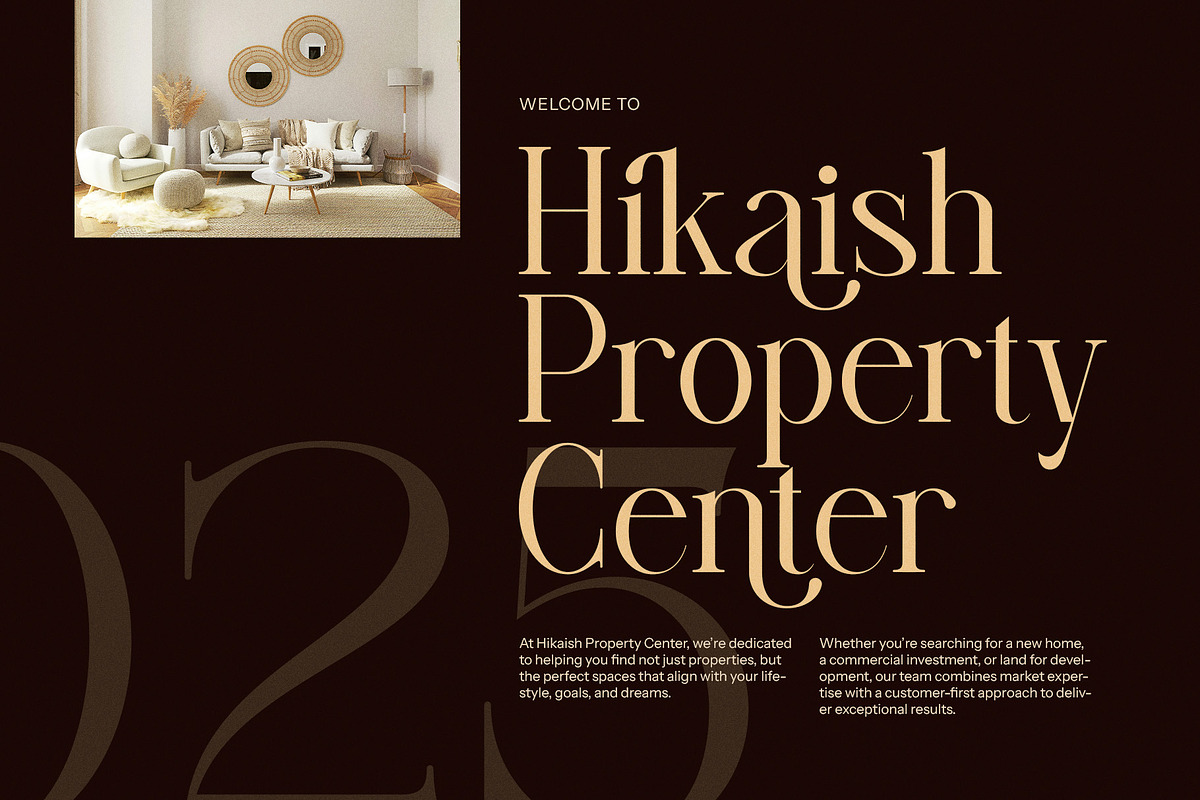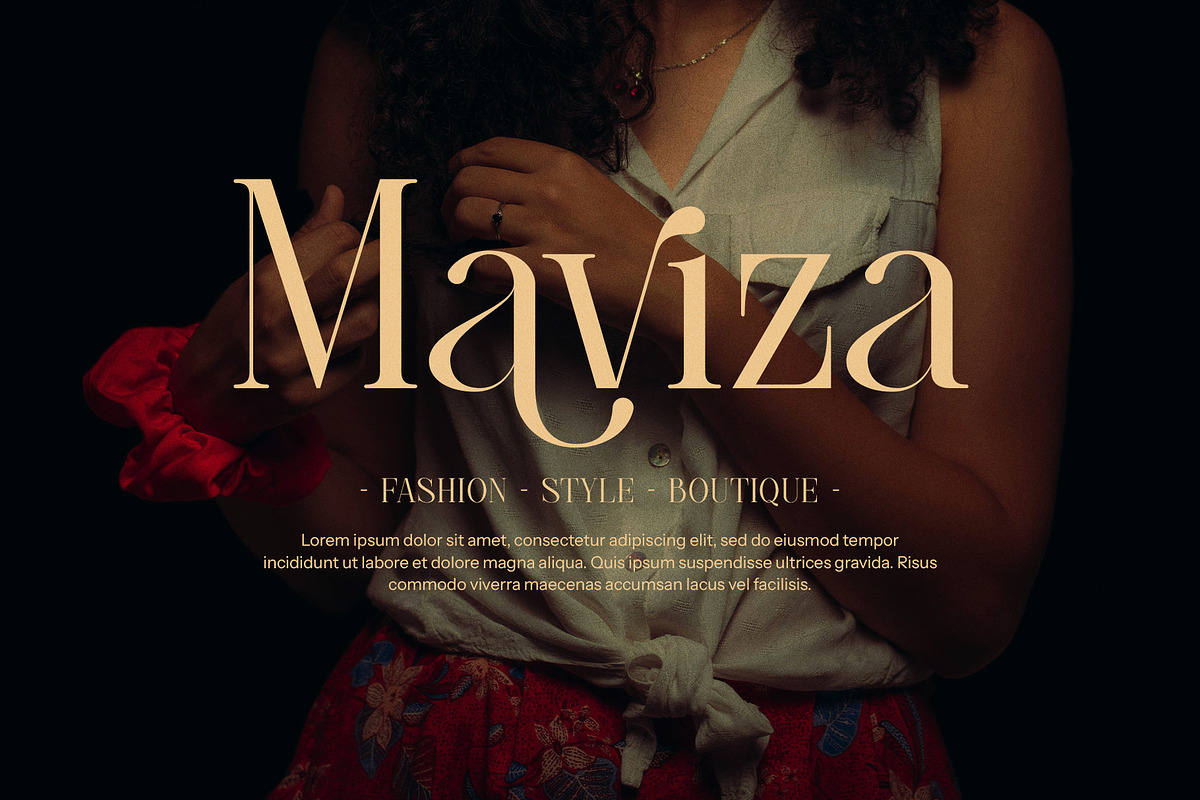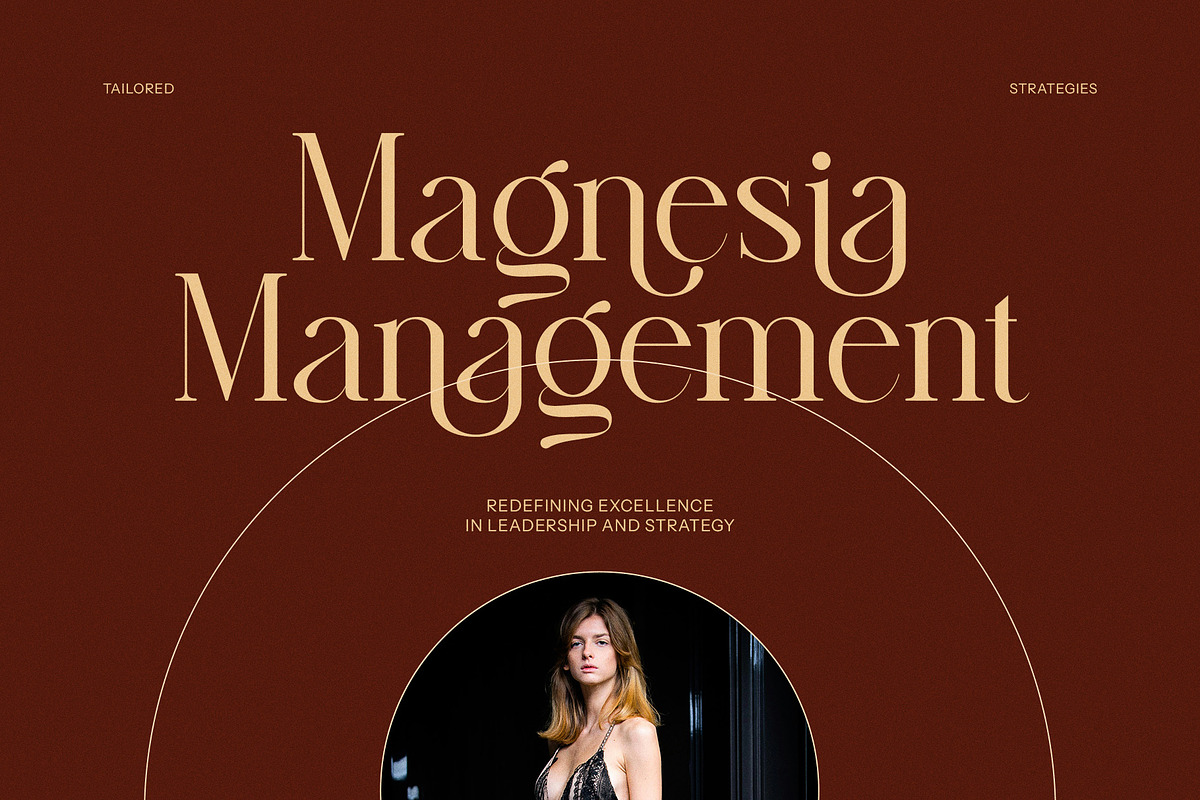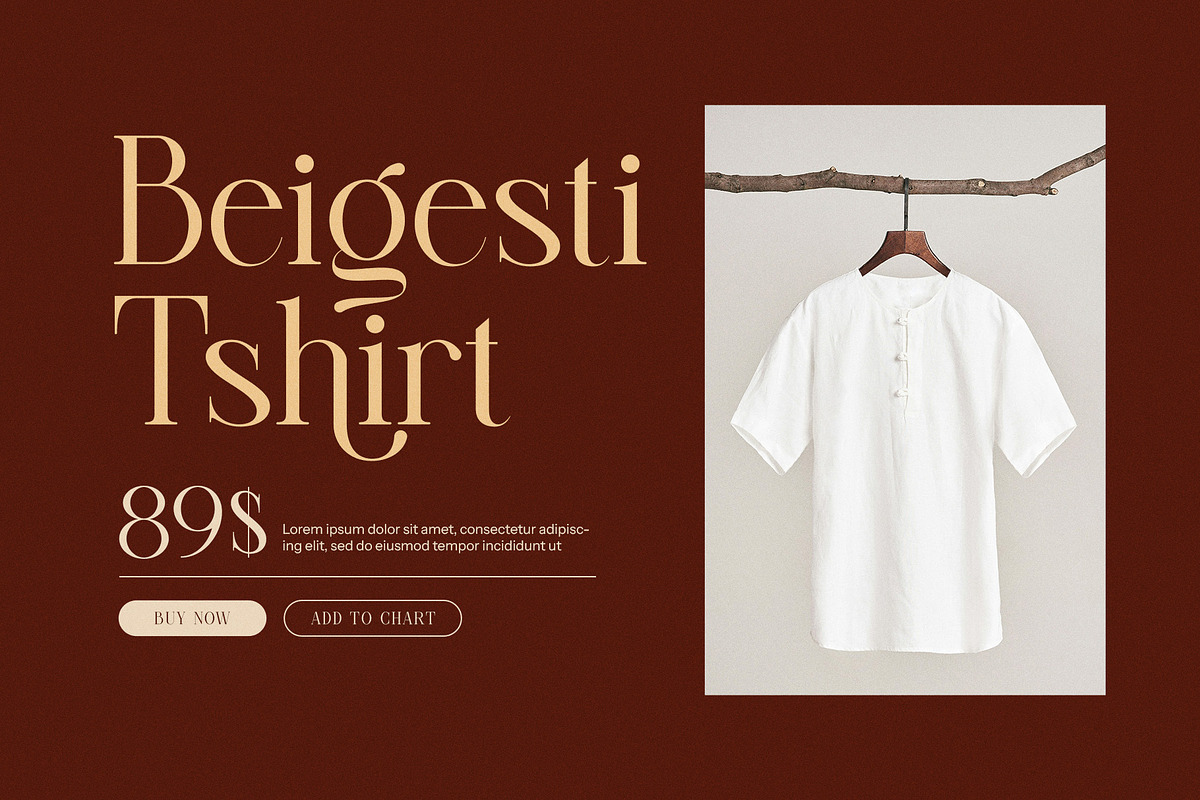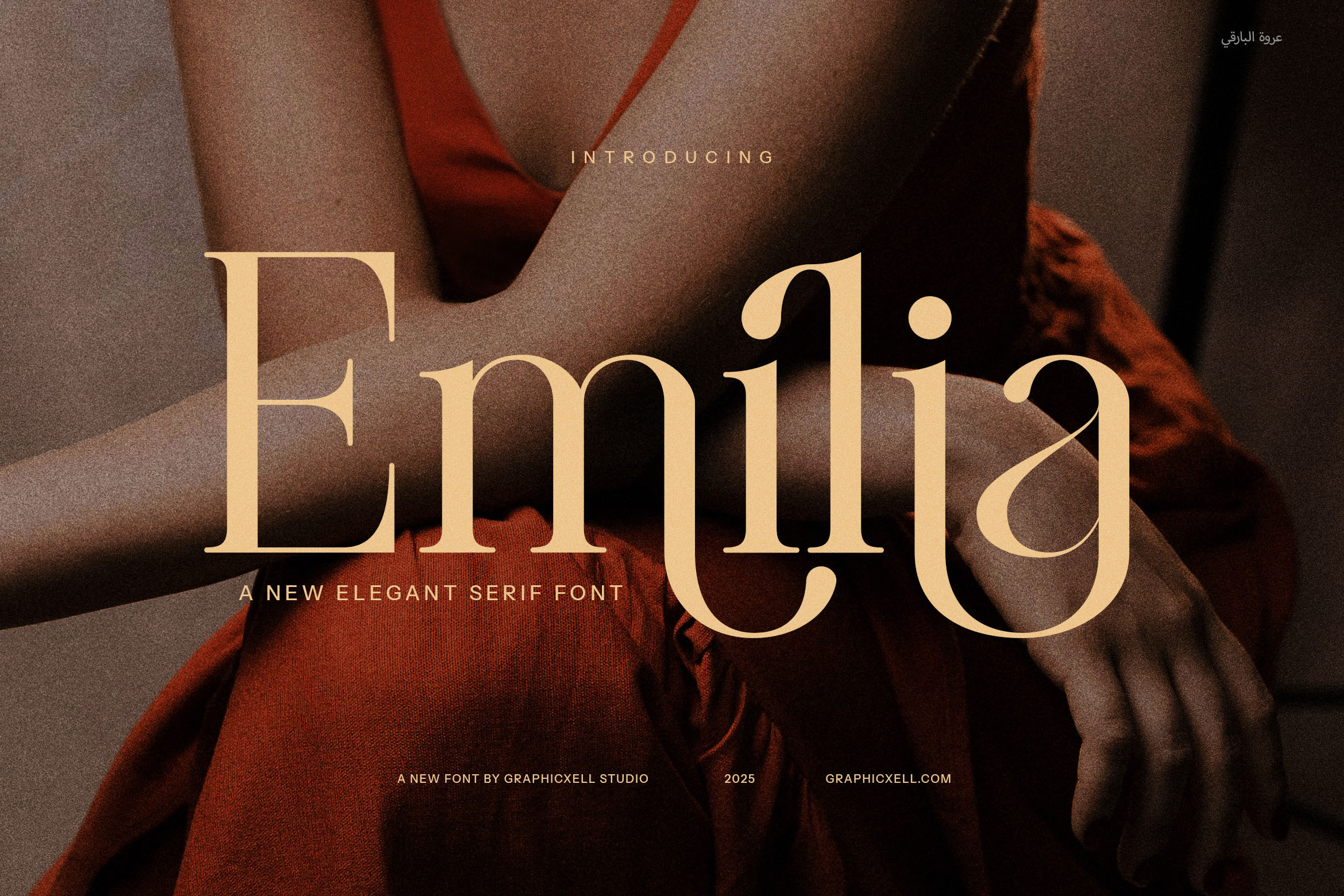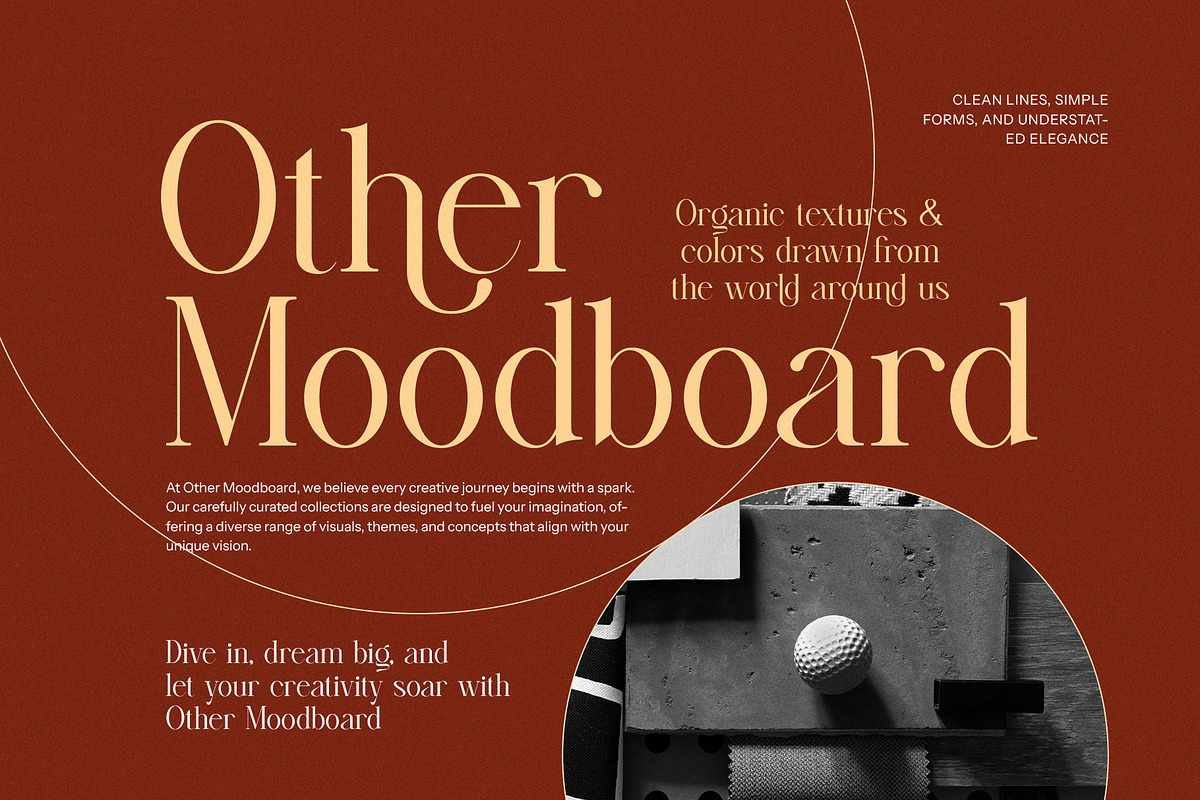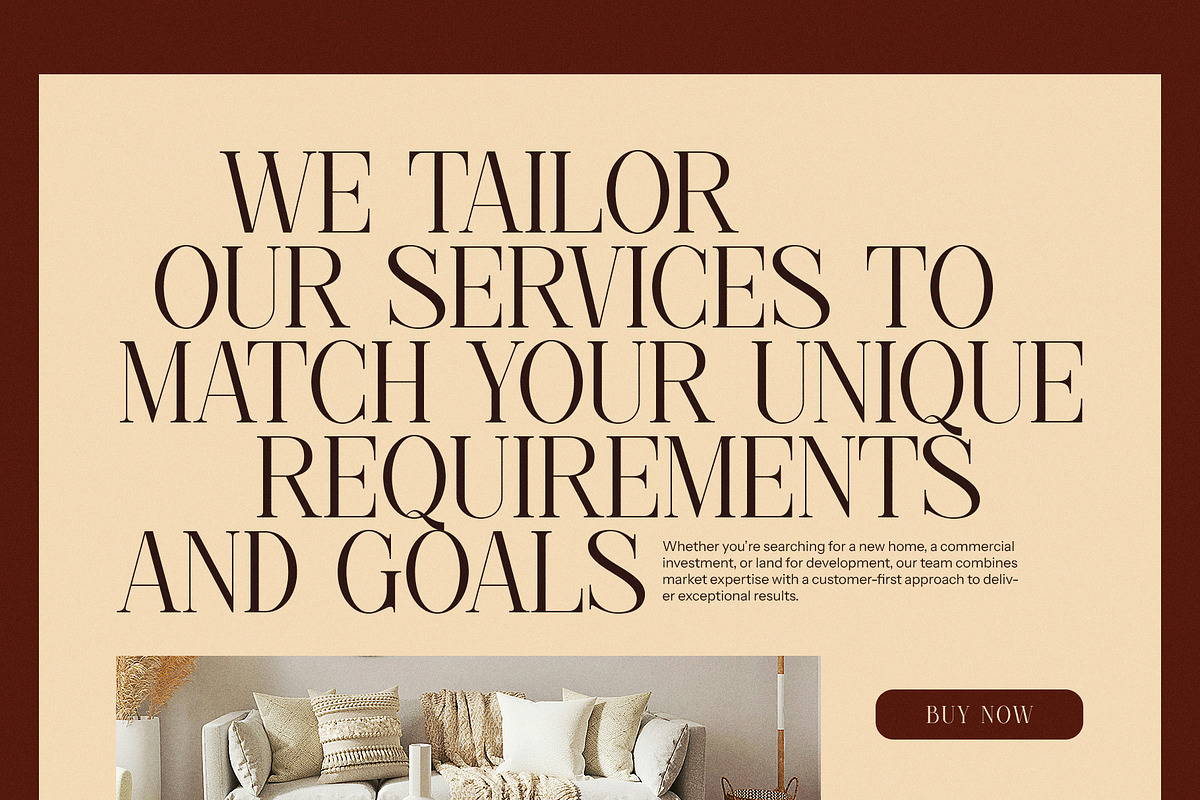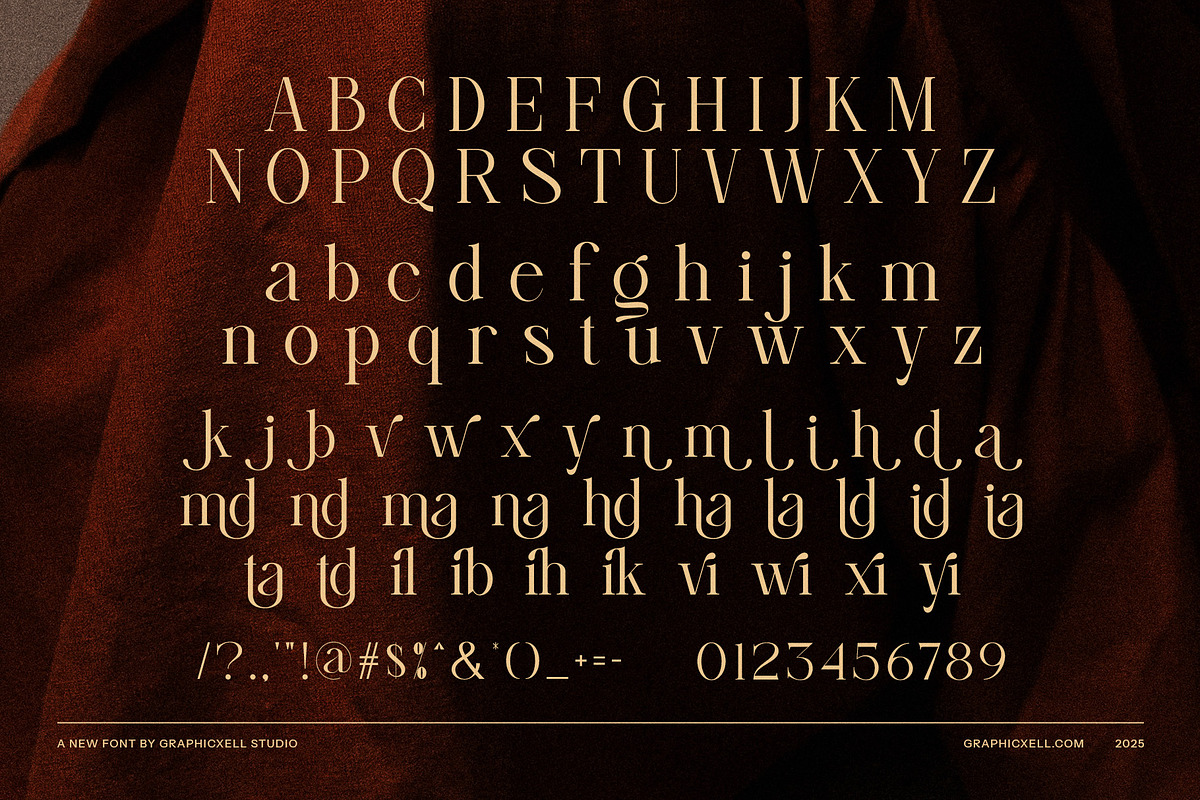
Emilia Elegant Serif Font
Emilia Elegant Serif Font is a stunning fusion of modern sophistication and timeless elegance, crafted to elevate your designs with style and grace. With its clean serifs, fluid curves, and meticulously designed details, Emilia offers a versatile aesthetic that suits a wide range of creative projects. Its standout ligatures and alternate forms add a touch of uniqueness, allowing you to create captivating and distinctive typography.
Perfect for high-end branding and identity design, Emilia radiates luxury and refinement, making it an excellent choice for logos, upscale product packaging, and boutique branding. Its polished and contemporary look ensures your brand leaves a memorable impression while exuding professionalism.
Emilia’s elegance is equally at home in editorial layouts such as magazines, brochures, and websites, where its balance of readability and style can shine. Whether you’re designing headlines, subheadings, or body text, this typeface offers the versatility to craft cohesive and visually appealing layouts.
This font’s adaptability makes it suitable for various industries, from fashion and beauty to hospitality, food, and beyond. Use Emilia to create stunning advertisements, stylish menus, or social media graphics that demand attention and convey sophistication.
Emilia Elegant Serif Font is more than just a typeface—it’s a design tool that transforms ordinary text into an artistic expression. Combining classic charm with modern versatility, Emilia ensures your projects are as elegant as they are impactful. Unlock the potential of your designs with Emilia and make every detail unforgettable.